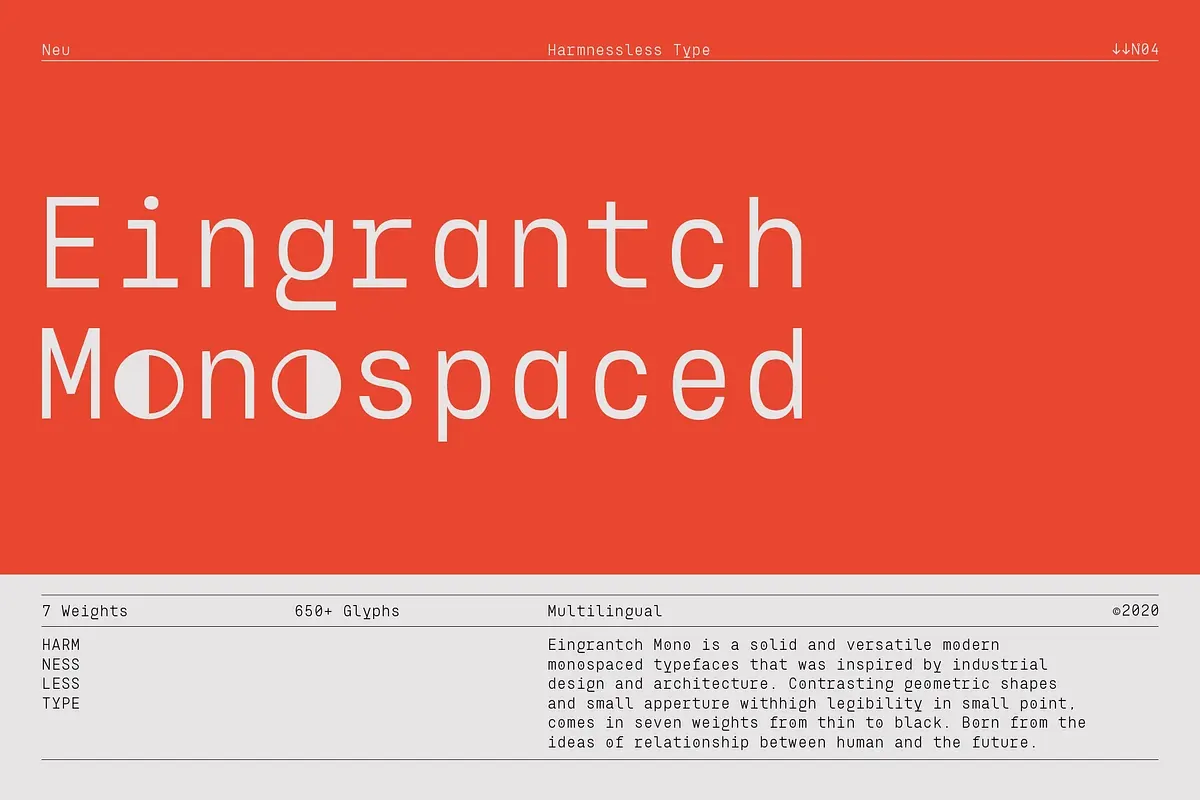
The Eingrantch Monospaced Font Free Download is a modern, clean, and highly readable typeface designed with uniform letter spacing, making it ideal for coding, technical projects, and minimalist designs. Featuring a monospaced style, this font ensures that each character occupies the same amount of space, offering a sleek and organized look for your work. Whether you're designing for a tech brand, creating developer tools, or working on a project that needs a clean and professional appearance, Eingrantch Monospaced adds clarity and precision to your designs.
Eingrantch Monospaced Font Free Download is perfect for designers looking for a functional, minimalist typeface for technical design, coding projects, or modern digital content. Download it today and enhance your creative work with the sharp, clean style of Eingrantch!